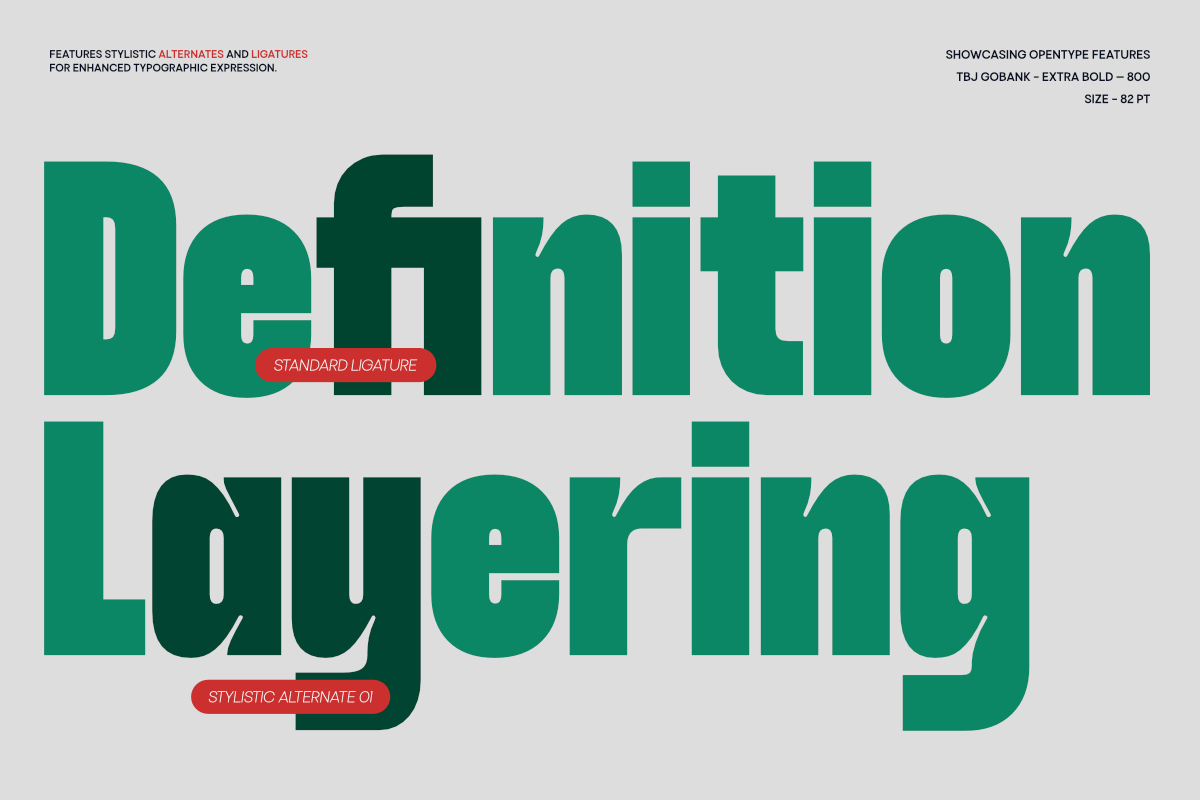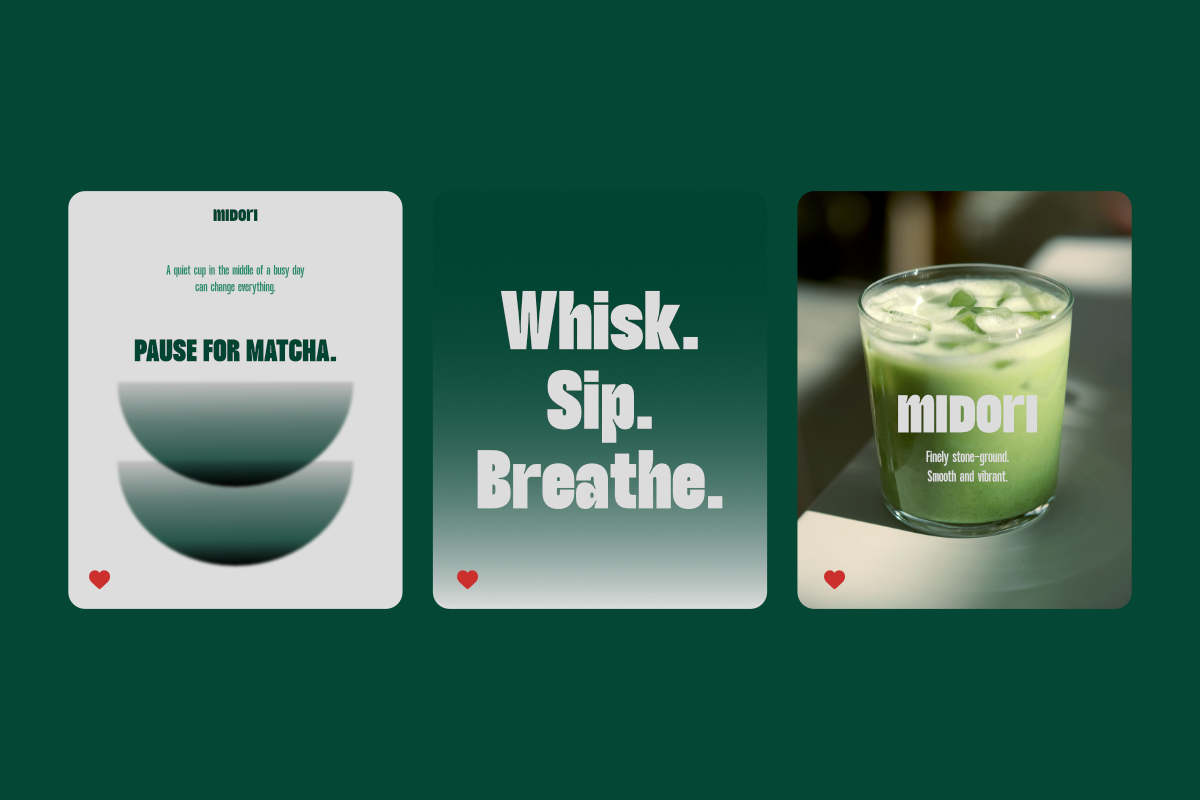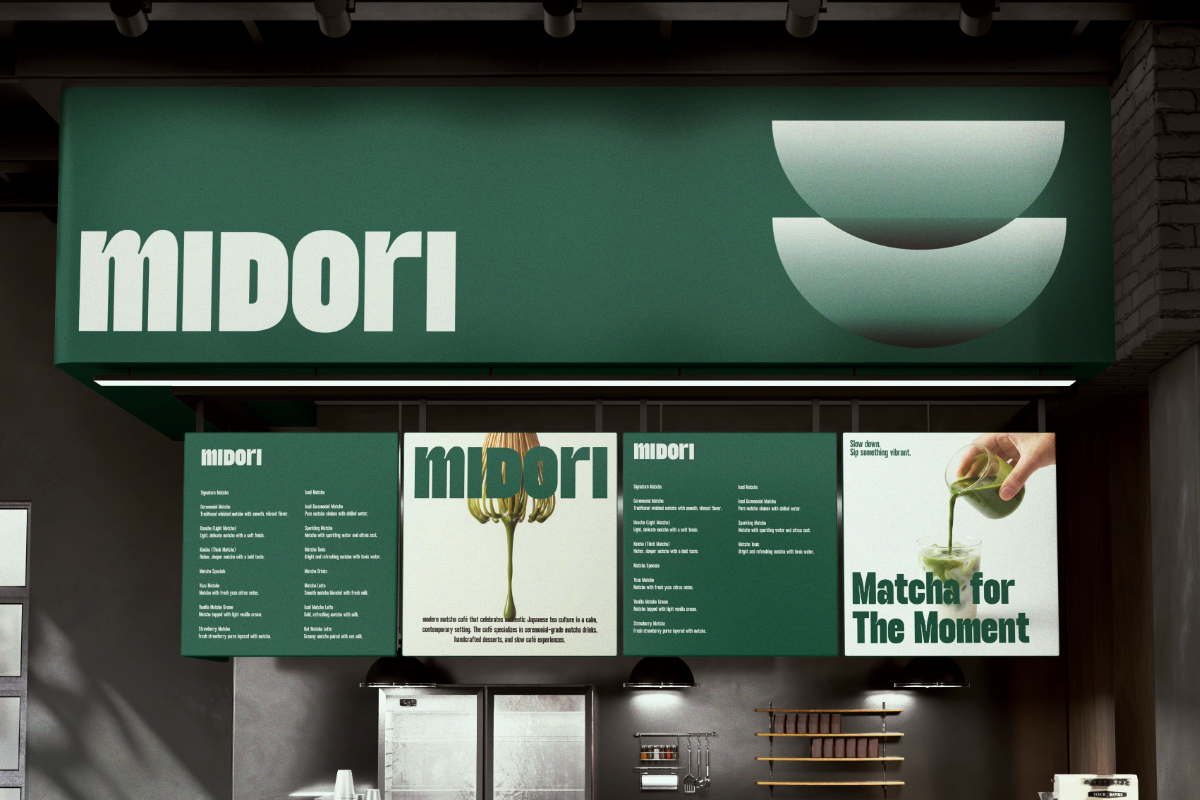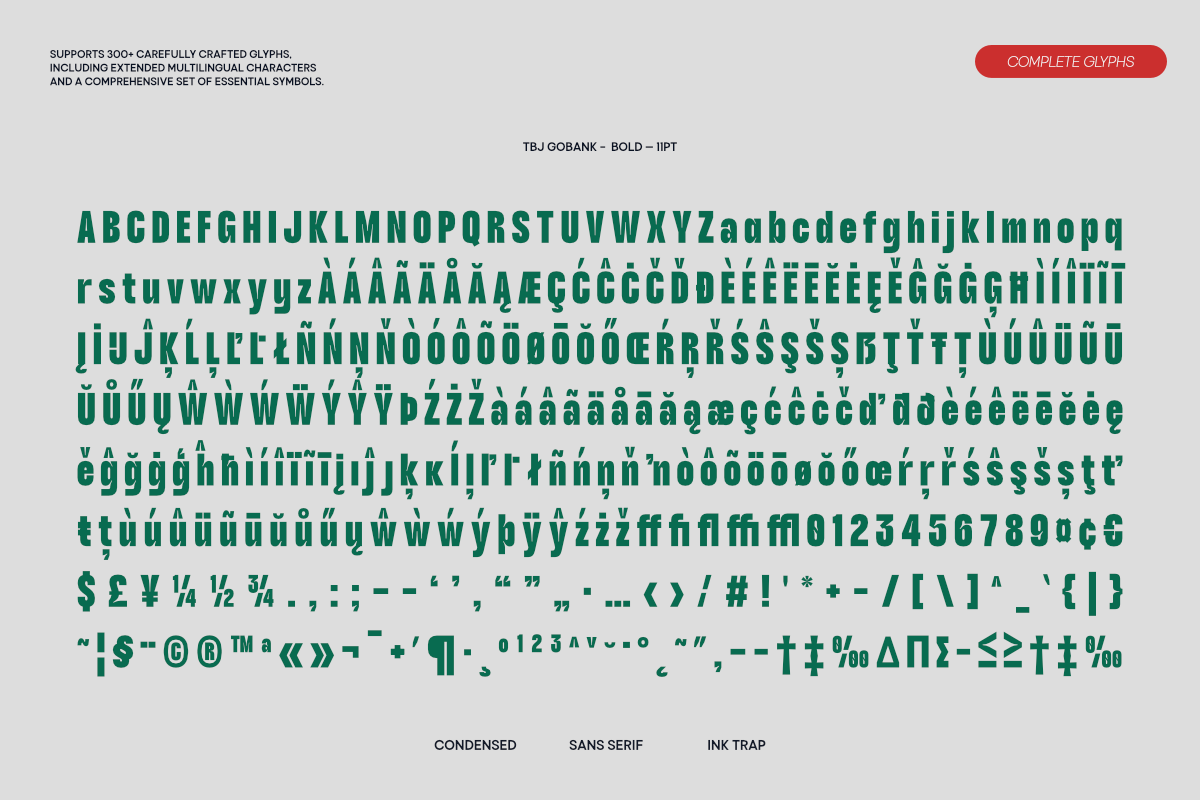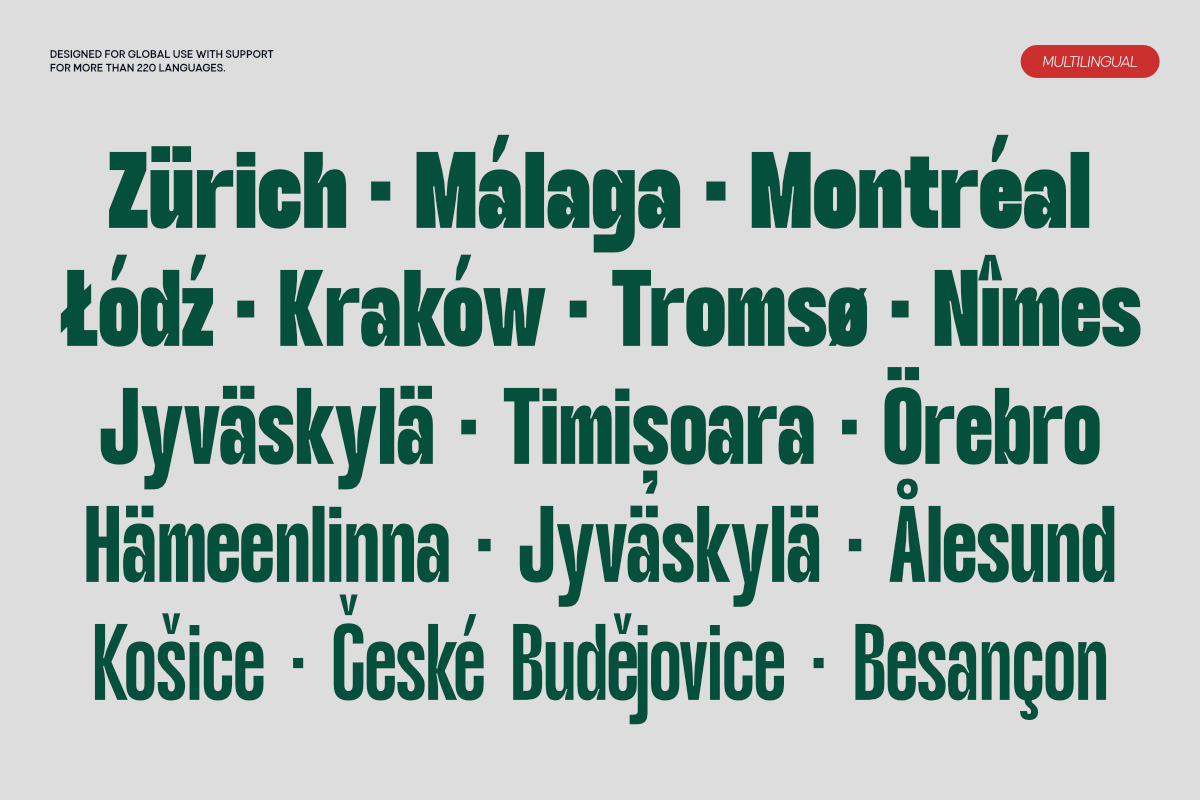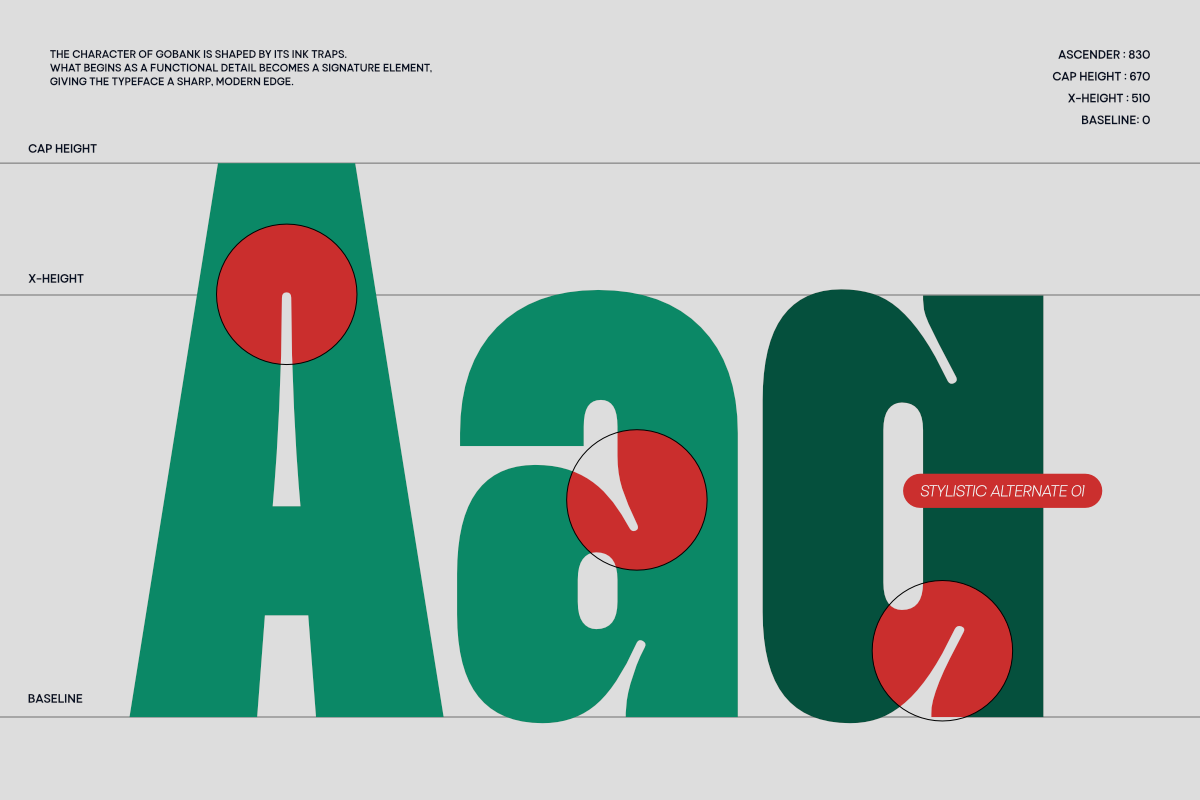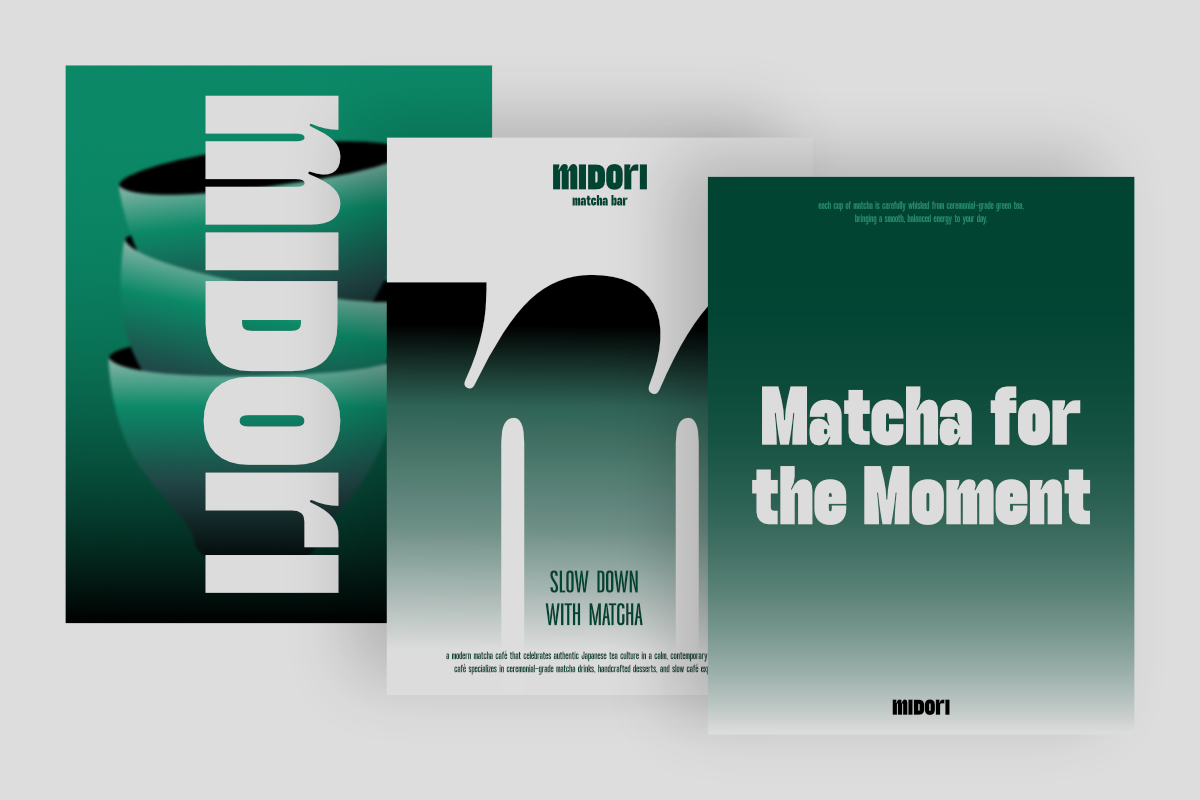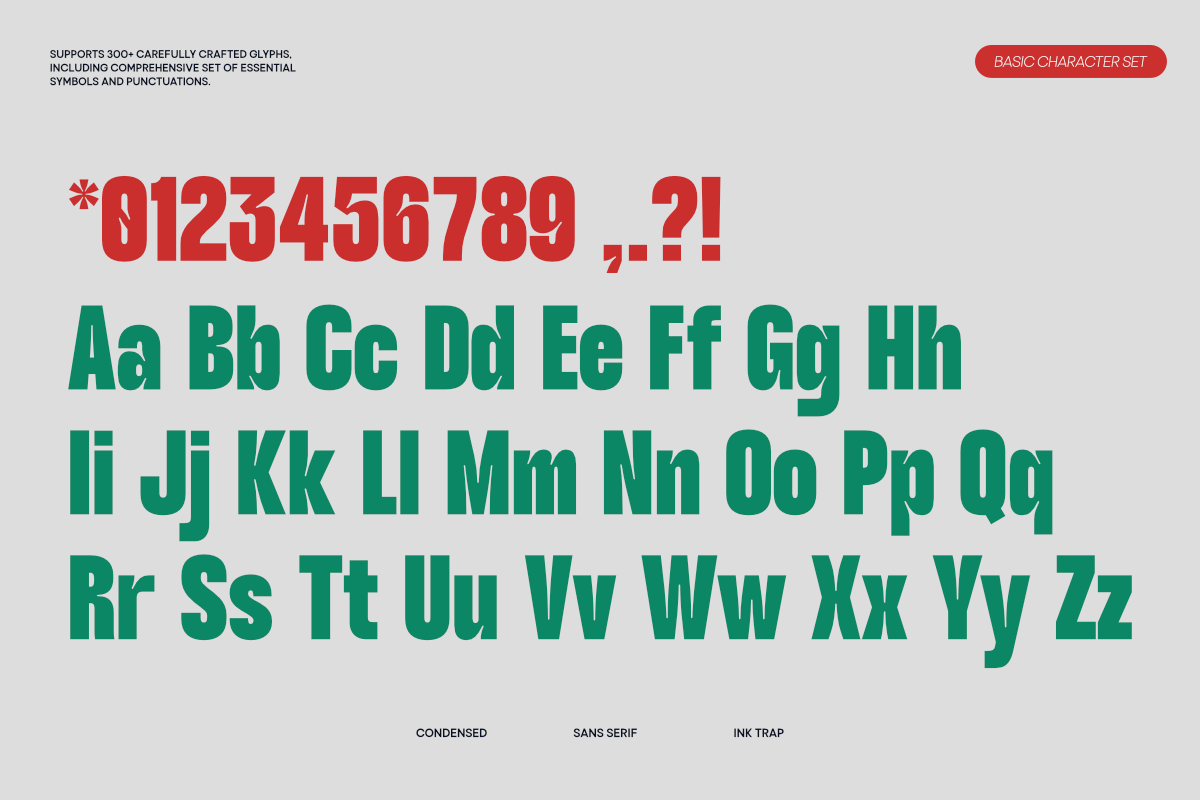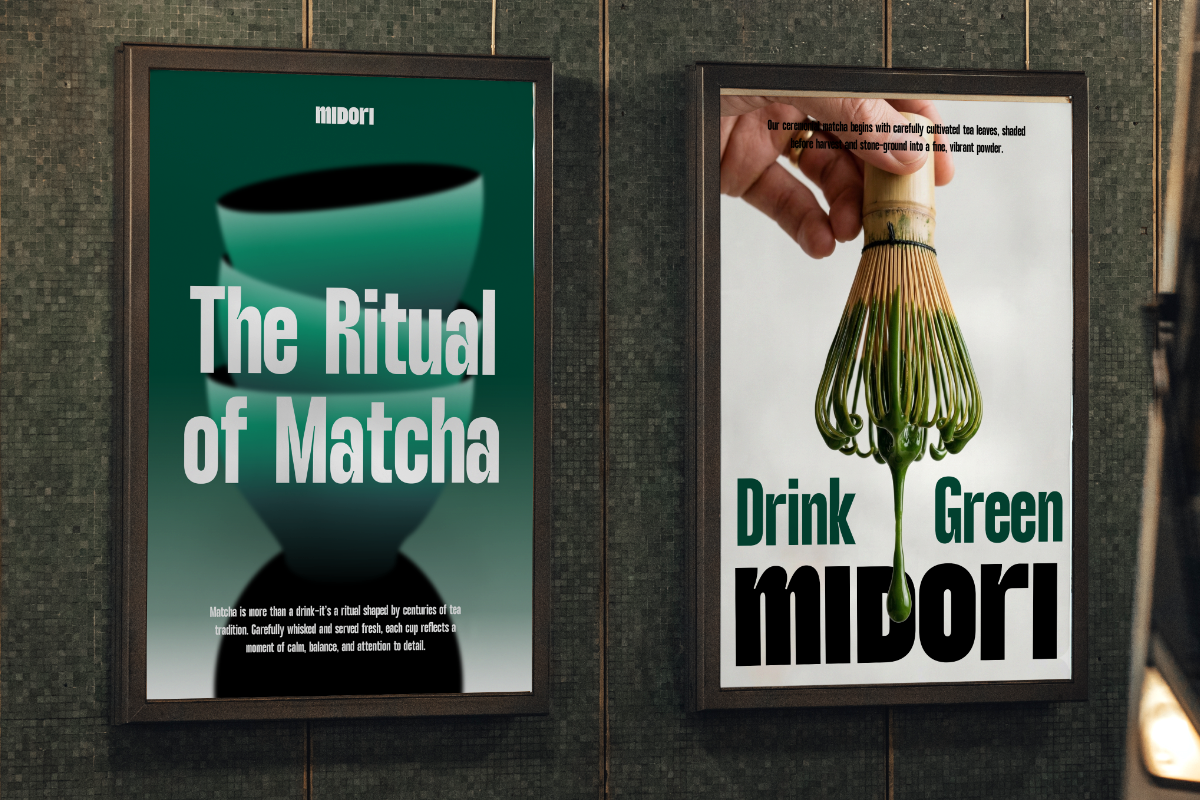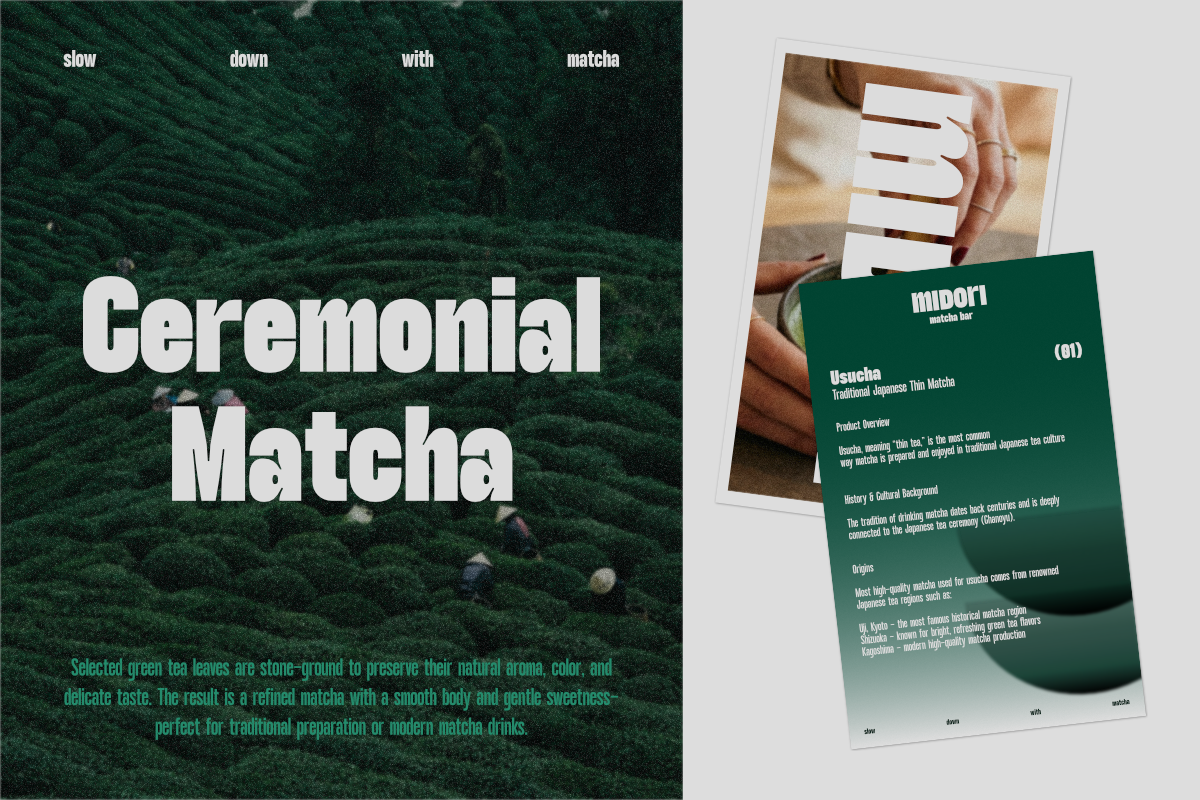
TBJ Gobank Condensed Inktrap Power
TBJ Gobank is a modern condensed sans serif typeface featuring distinctive rounded inktrap details that enhance both character and performance. Built with strong vertical proportions and tight spacing, Gobank delivers a bold, compact presence while maintaining clarity and readability across sizes.
The rounded inktrap cuts are carefully engineered to improve visual balance in heavier weights while adding a subtle, unique personality. This combination of condensed structure and softened inktrap forms creates a powerful yet refined typographic voice—ideal for headlines, posters, branding systems, packaging, and digital campaigns.
Designed with a versatile weight range from Light to Extra Bold, TBJ Gobank transitions smoothly from clean editorial typography to dominant display statements. Each weight preserves its structural consistency, allowing designers to build cohesive and impactful visual systems.
TBJ Gobank blends modern industrial strength with contemporary detailing, making it perfect for sports branding, urban visuals, corporate identities, merchandise, and high-impact social media graphics.